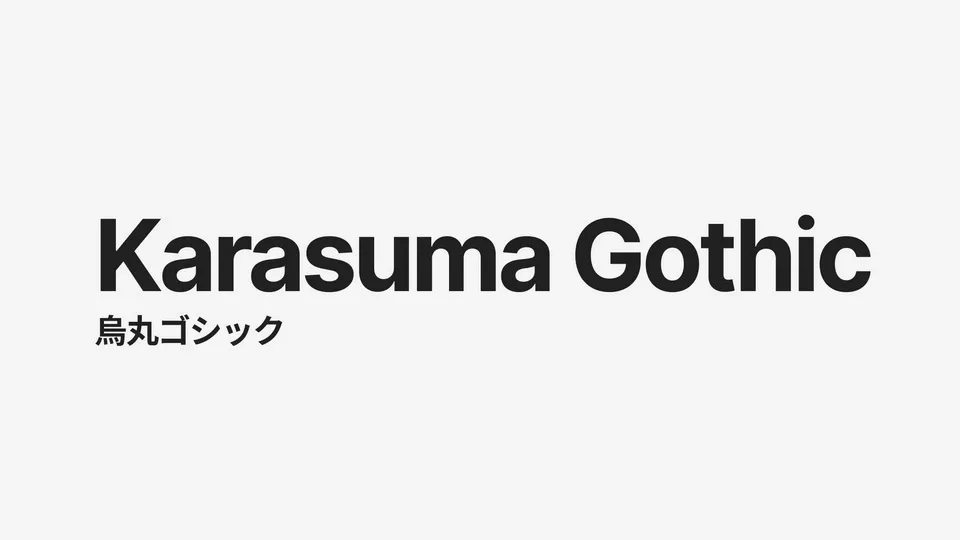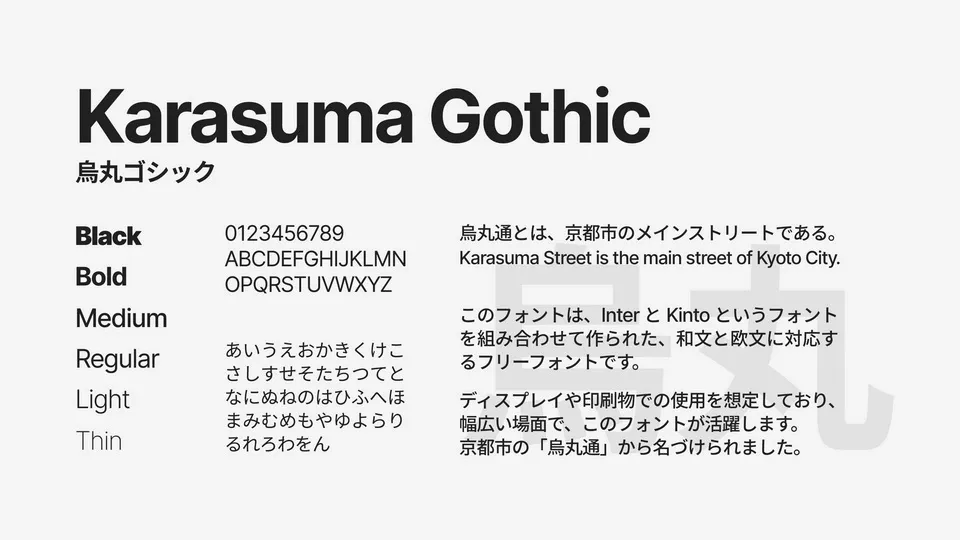
Karasuma Gothic Font Family
Karasuma Gothic Font Family is a versatile Japanese sans-serif font family available for free. This typeface offers a clean, modern aesthetic characteristic of Japanese Gothic styles. It comes in multiple weights, including Light and Black, with variations like Italic, providing flexibility for diverse design needs. Karasuma Gothic is well-suited for both digital and print applications, effective in headlines, body text, branding, and user interfaces, especially where multilingual support is beneficial. Its clear legibility and contemporary feel make it a valuable addition for designers seeking a functional and stylish sans-serif typeface.